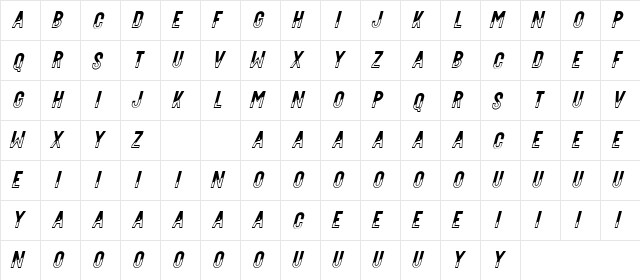
Buffalord Demo Gradient Italic
Design Context for Buffalord Demo Typeface
Buffalord Demo offers clean, dependable letterforms without strong stylistic allegiance, making it a practical choice for designers who need flexibility. The dynamic lean of this cut emphasises speed and emphasis in any layout.